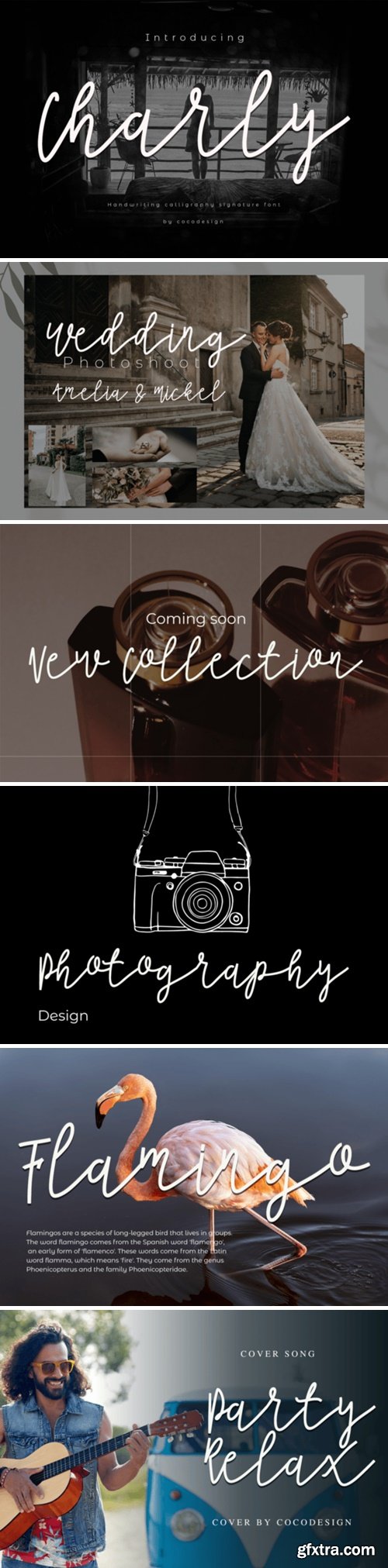
Introducing Charly, a mesmerizing blend of modern calligraphy and signature design. Its relaxed, beautiful allure is delicately accentuated by an engaging swash. Versatile and eye-catching, Charly effortlessly enhances logos, distinguishes product packaging, and adds an intimate touch to wedding invitations. It’s an ideal choice for casting a memorable impression on branding projects, adding sophistication to your headlines, or defining the aesthetics of signage and labels. With Charly, signatures are transformed into unique pieces of art. It breathes life into book covers and turns posters into captivating visuals. Lend a touch of elegance to your quotes and elevate everyday items into extraordinary pieces with Charly's versatility and beauty.